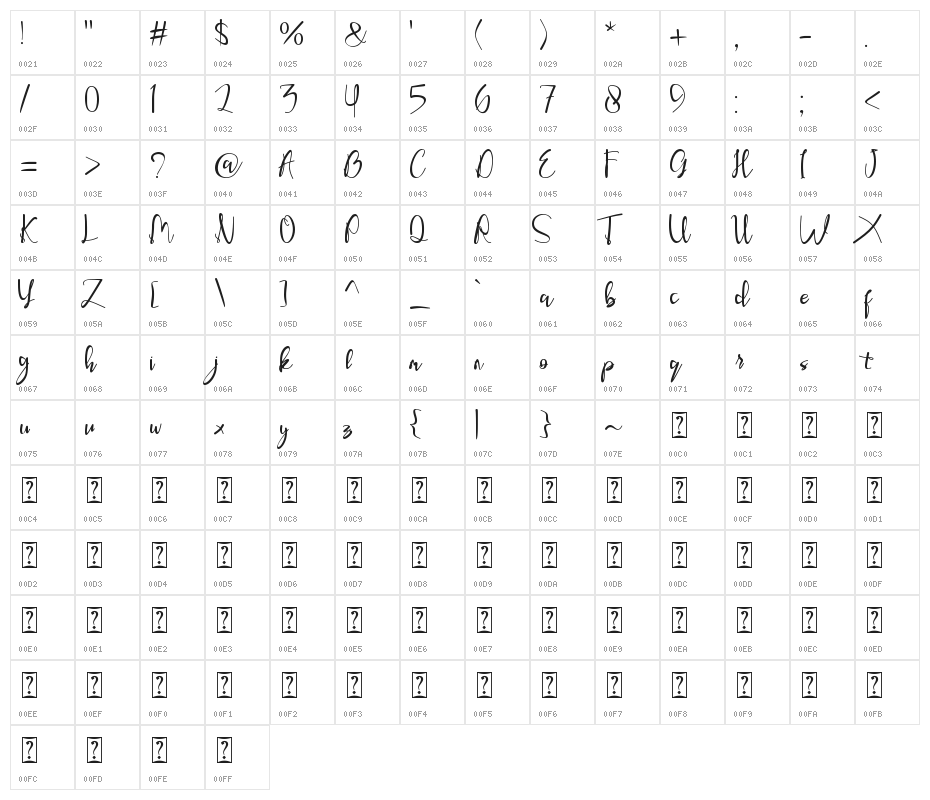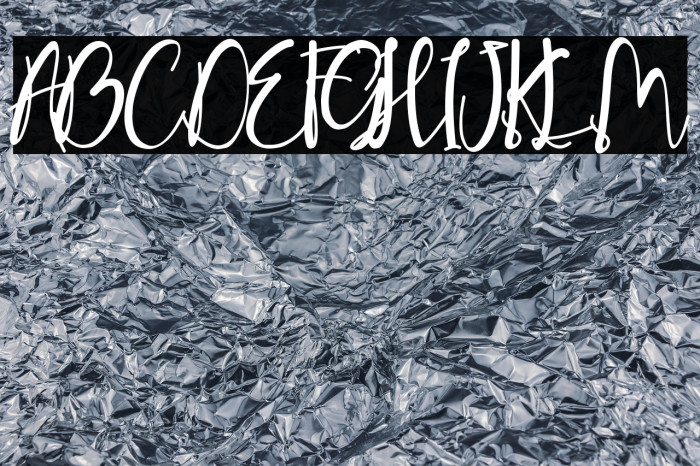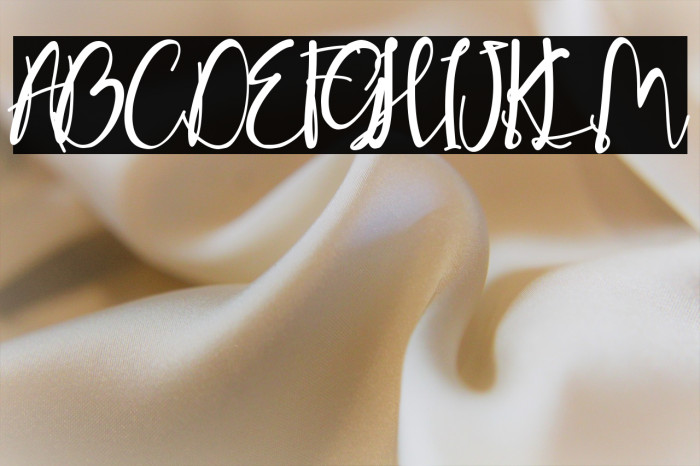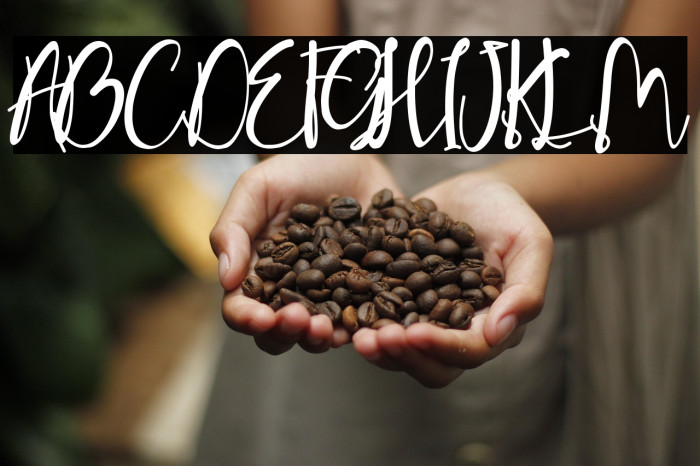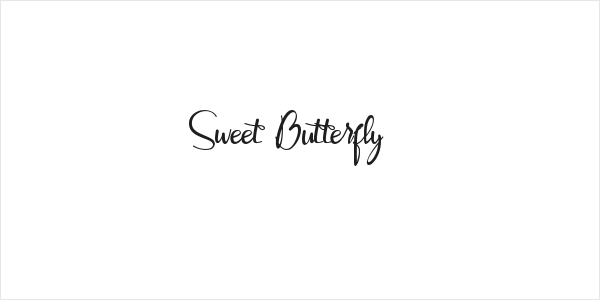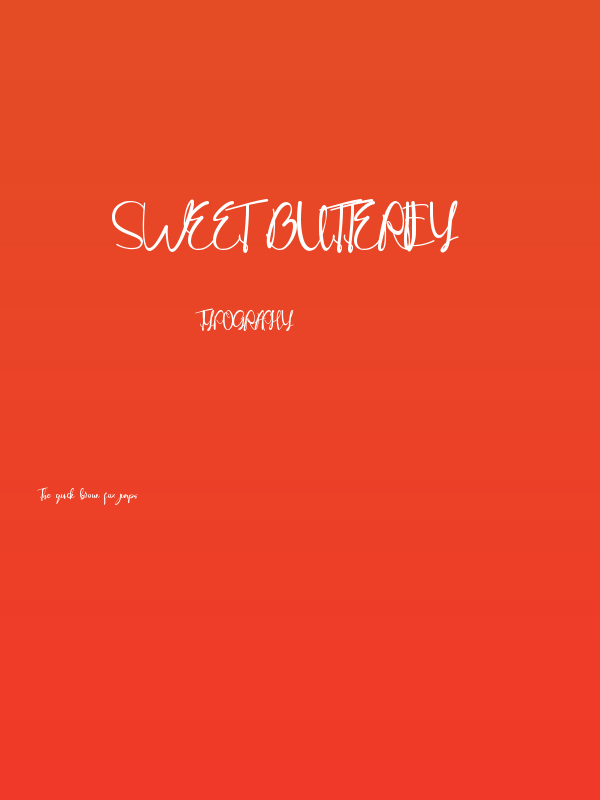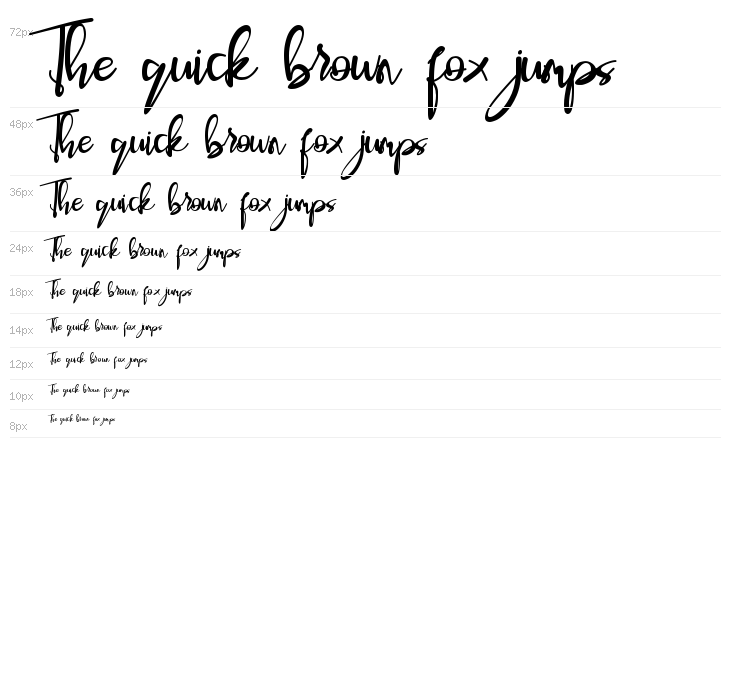
Sweet Butterfly Font
Sweet Butterfly Description
This font exhibits a lively and dynamic handwritten style, characterized by its fluid and flowing letterforms. The uppercase letters are bold and expressive, with a playful yet elegant flair. The lowercase letters maintain a consistent rhythm, offering a harmonious balance between the characters. Numbers and special characters are crafted with the same attention to detail, ensuring a cohesive look throughout. The strokes vary in thickness, providing a medium contrast that enhances readability while maintaining a distinctive appearance. This font is perfect for projects that require a personal touch, such as invitations, greeting cards, or branding materials.
| Use Case | Logos, Headlines, Decorative text |
| Proposed Projects | Ideal for invitations, greeting cards, branding, and any project needing a personal touch. |